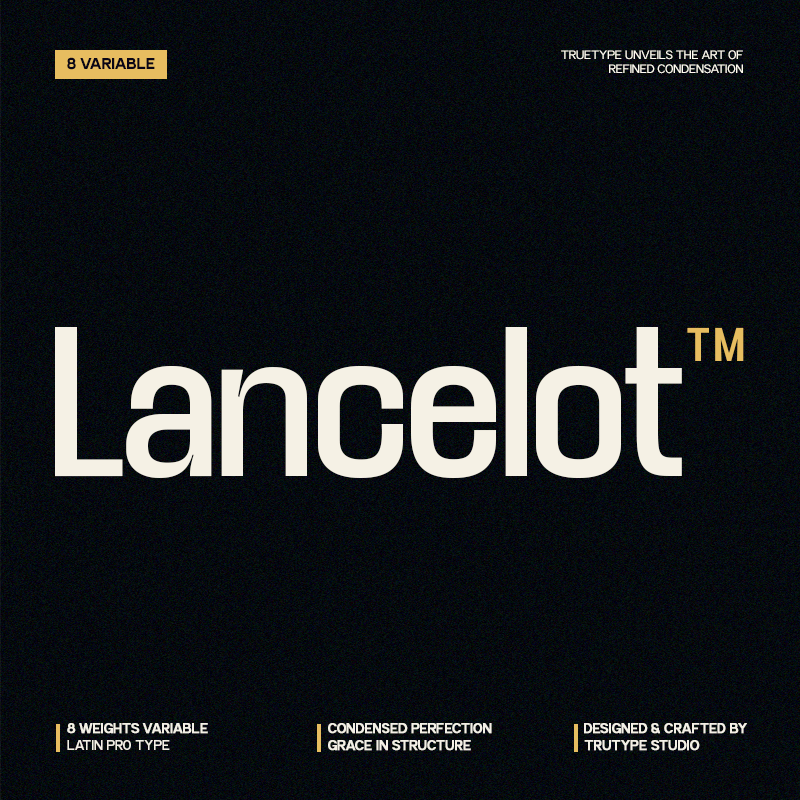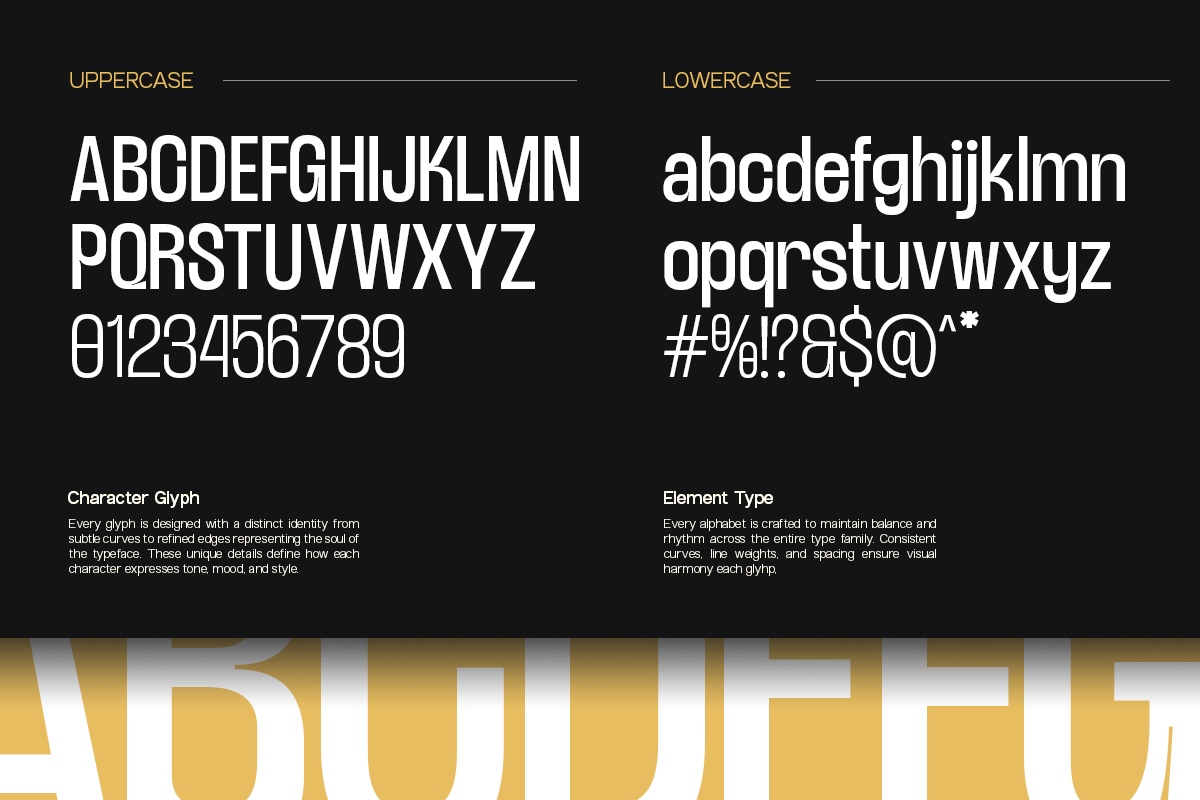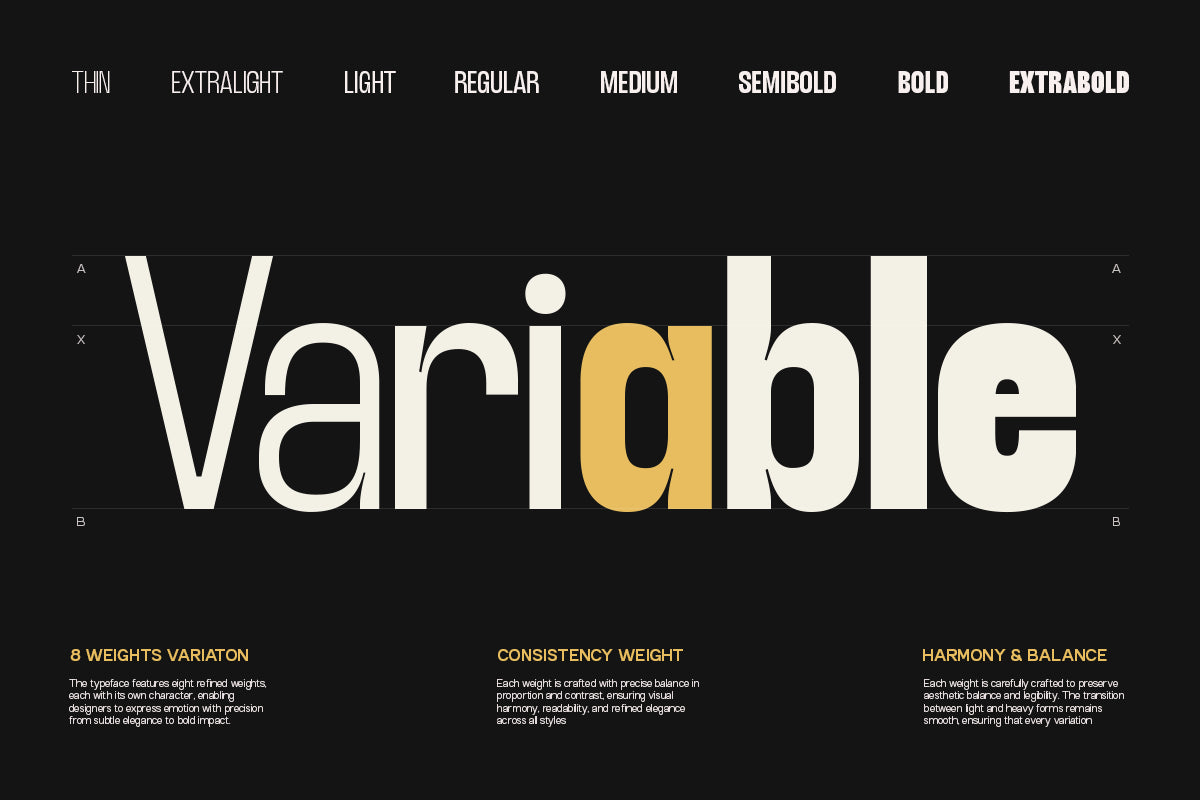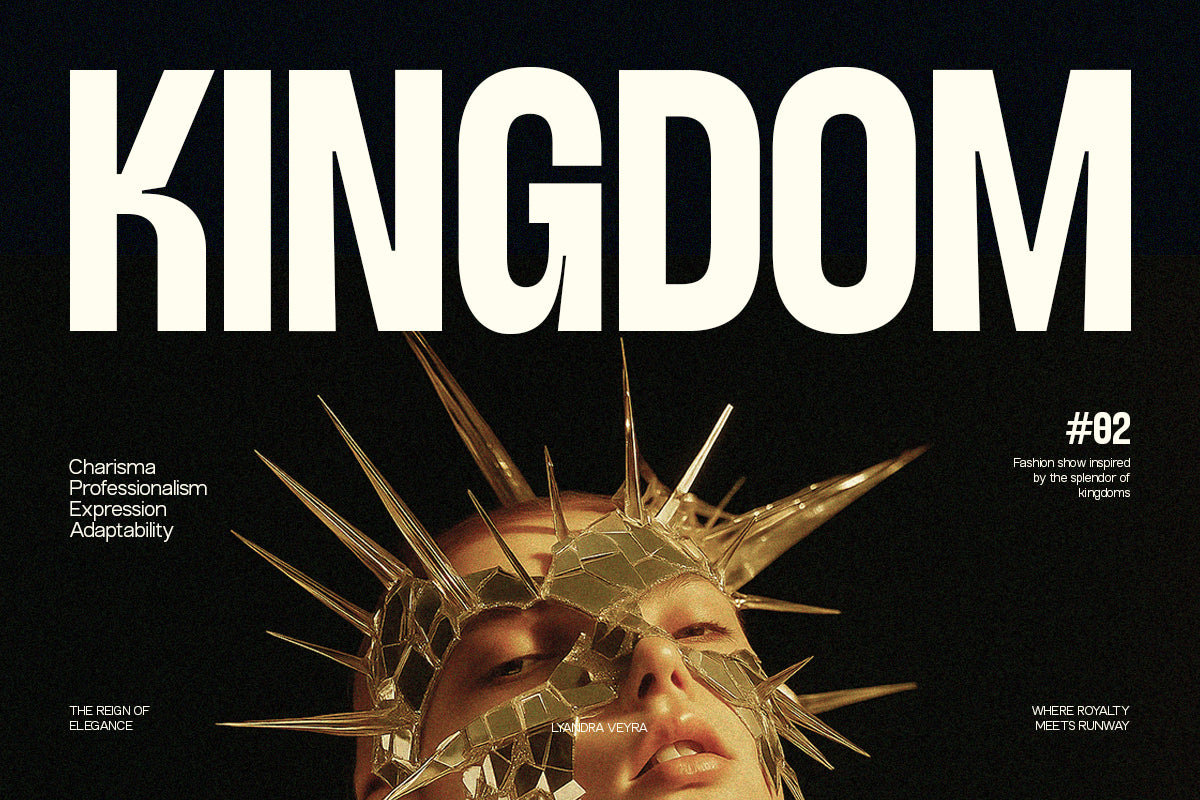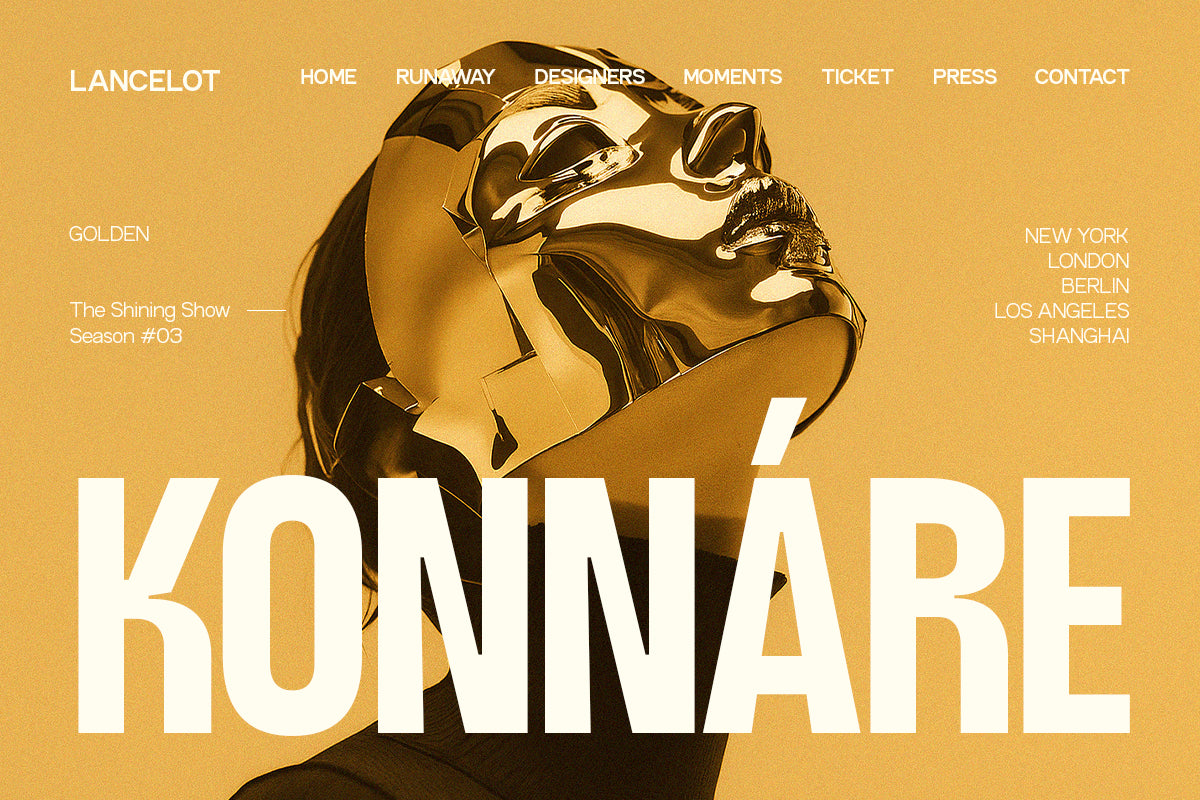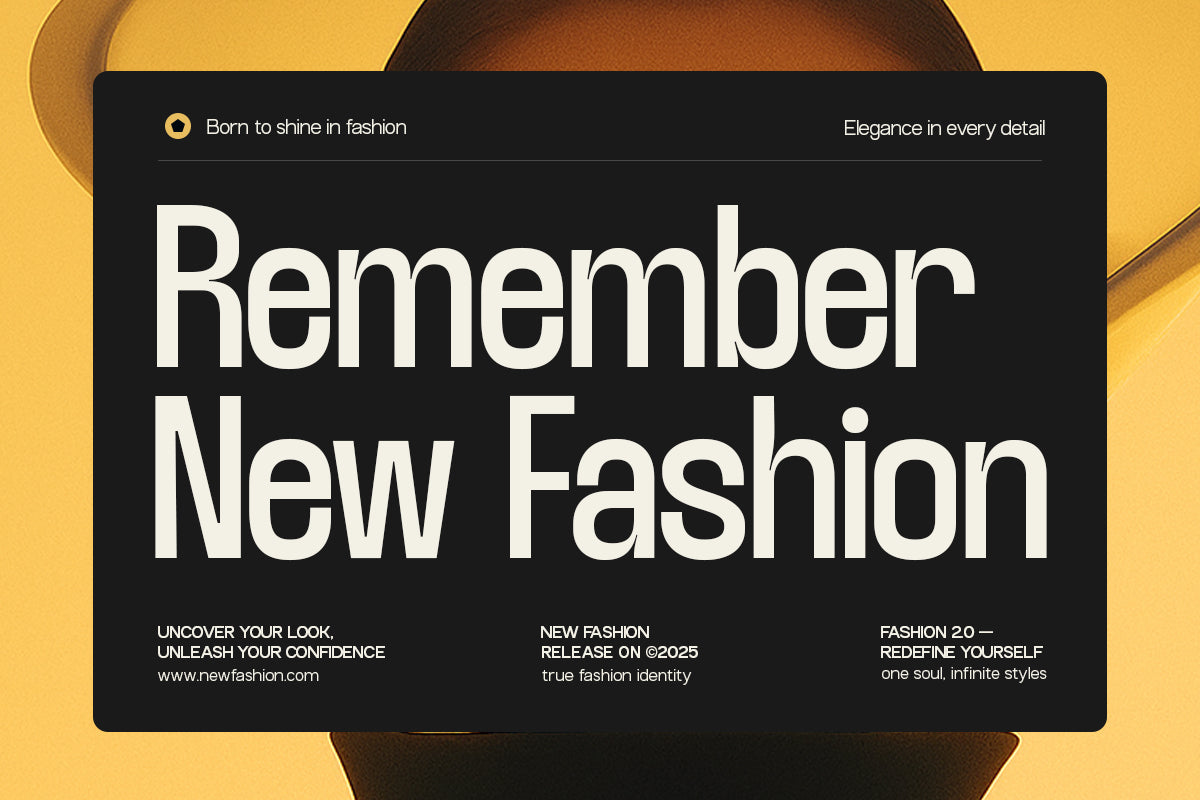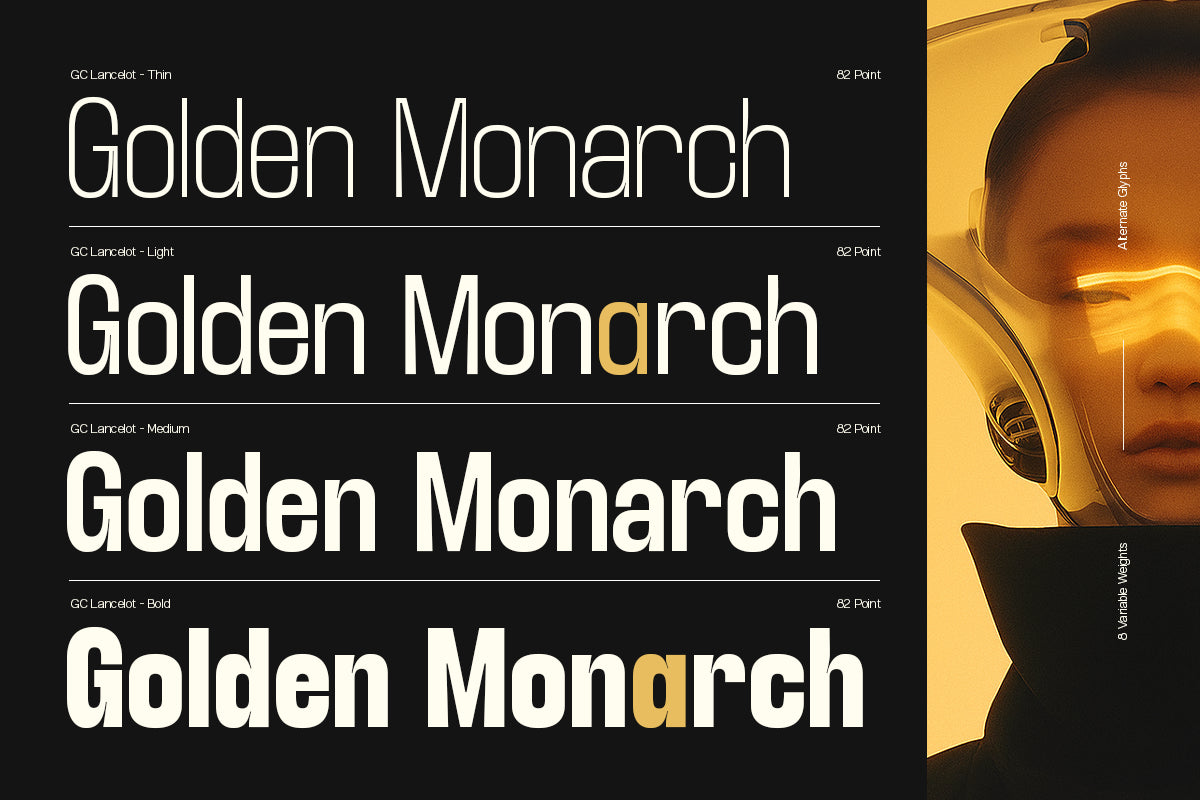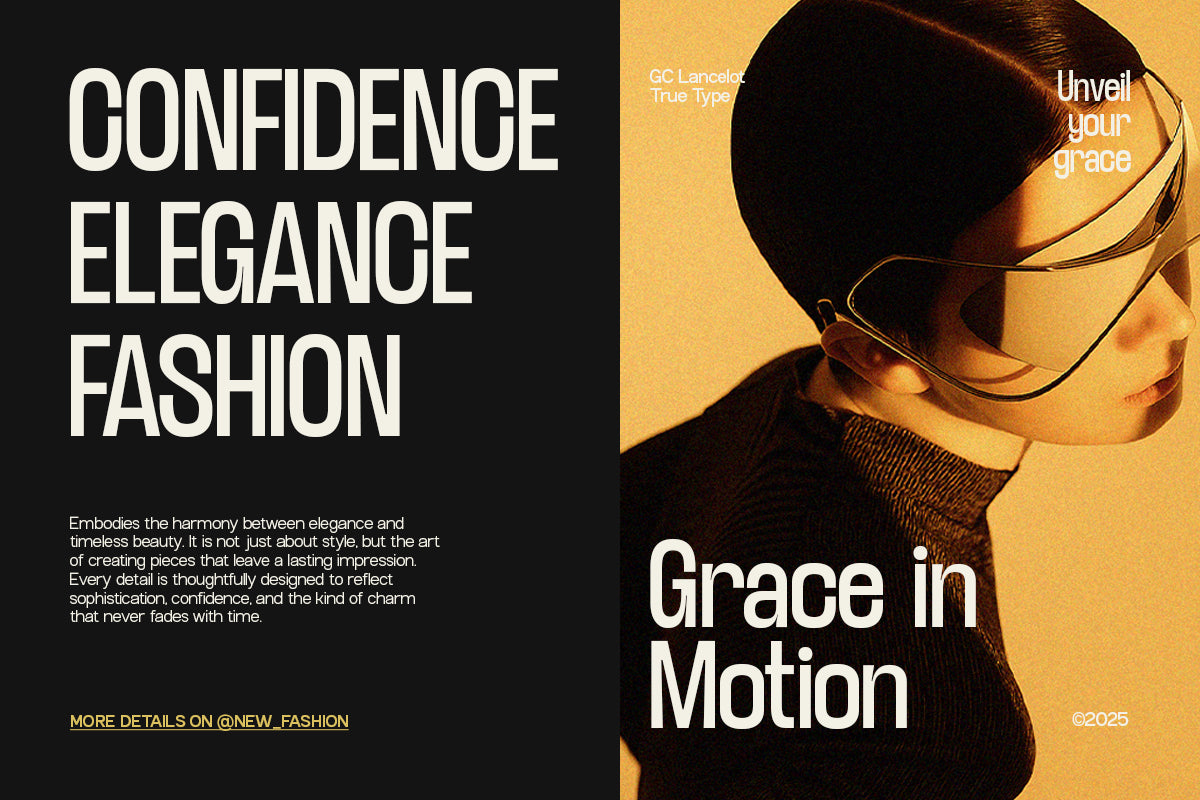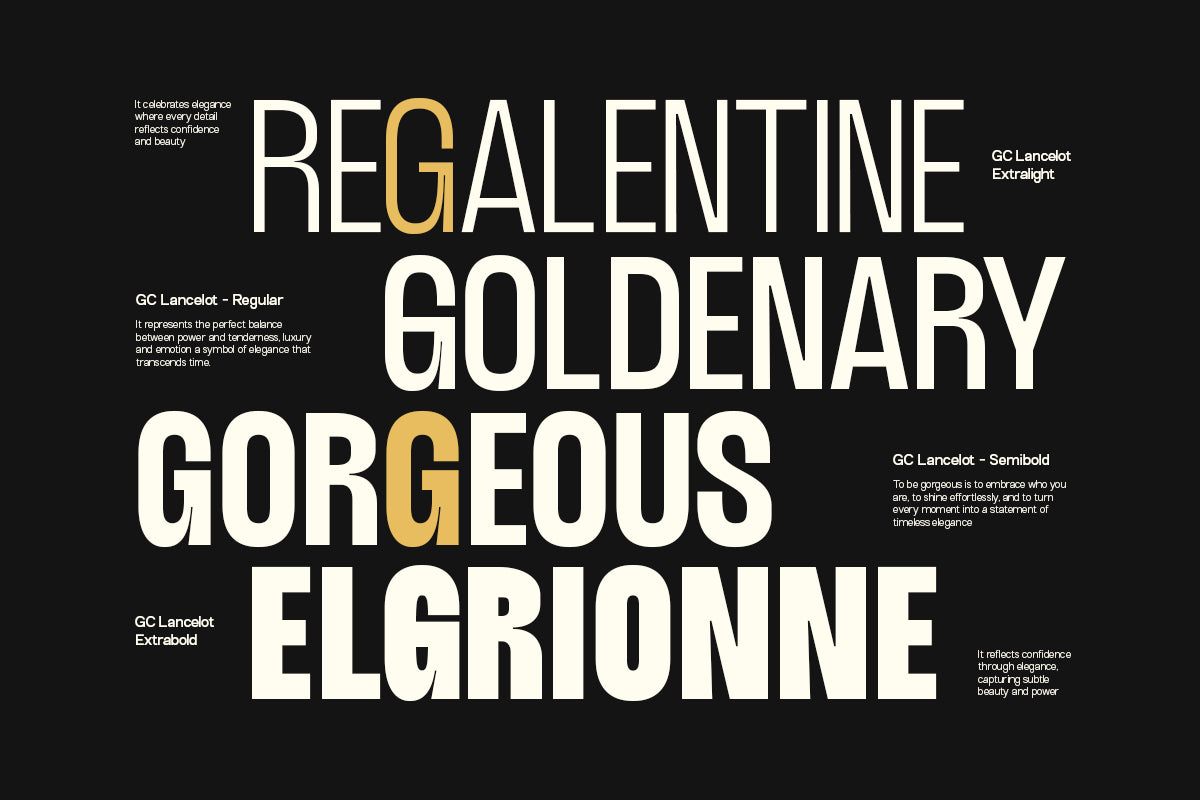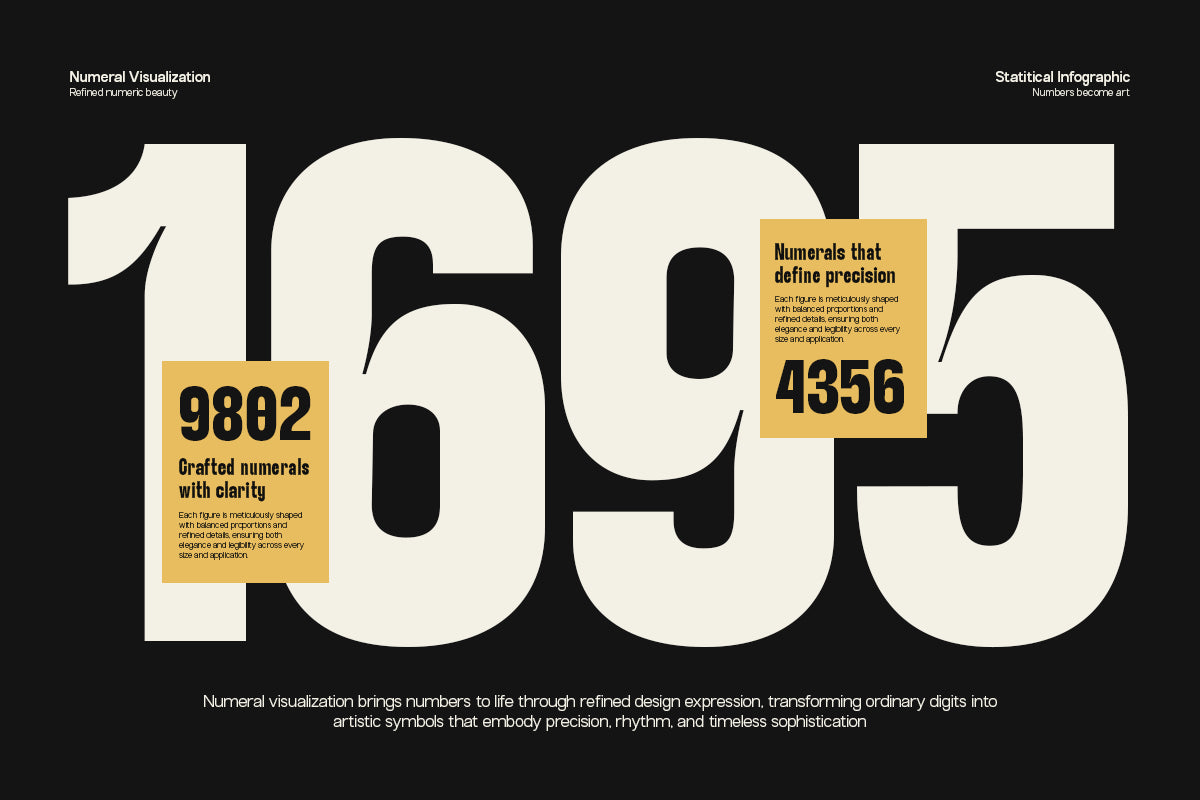
TRT Lancelot Condensed Font Family
The TRT Lancelot Condensed Font Family is a modern sans serif typeface that features distinctive inktrap details and a comprehensive range of weights from Thin to Extra Bold. Its compact structure ensures excellent readability at small sizes while providing a bold presence at larger scales, making it a versatile choice for various design applications.